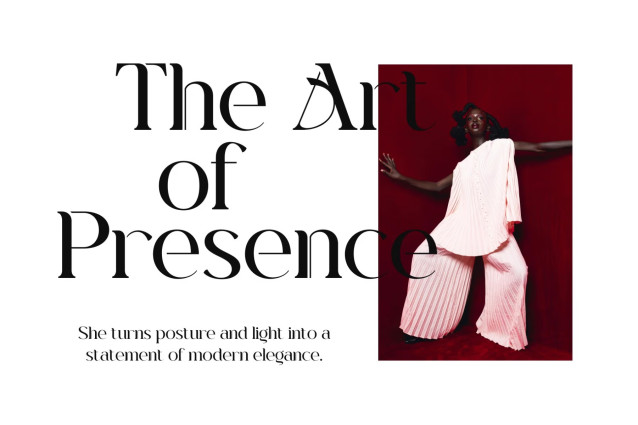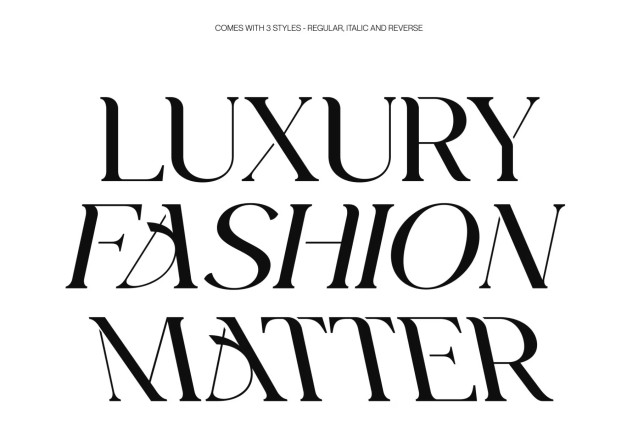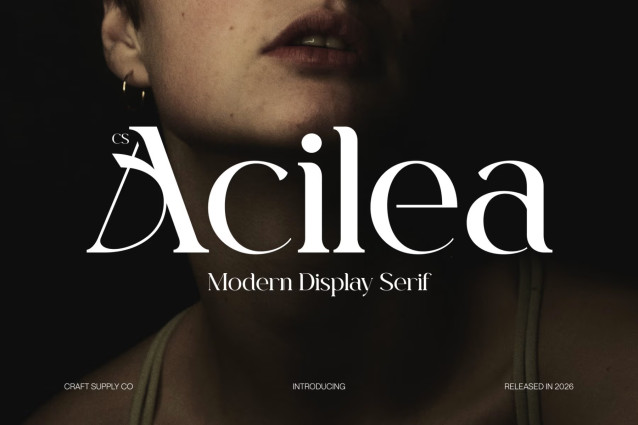
CS Acilea – Modern Serif with Refined Luxury Style
Modern Serif with Fresh Elegance
This is a modern serif font that embodies a refined sense of style and contemporary luxury. Its clean structure and balanced proportions create a sophisticated appearance that feels both timeless and current. Designed to bring elegance to modern typography, this font delivers a polished and graceful presence in every composition.
Refined Details with Contemporary Appeal
The letterforms of this font combine classic serif foundations with modern refinement, resulting in shapes that feel fresh, stylish, and visually pleasing. Smooth curves and carefully crafted proportions enhance readability while maintaining an upscale and fashionable personality. The overall design feels confident, elegant, and beautifully restrained.
Luxury Tone with Versatile Character
This font communicates a high-end tone without being overly decorative, making it highly versatile across different creative contexts. Its refined style adapts effortlessly to both minimal and expressive layouts, providing a luxurious typographic voice that remains clear and approachable.